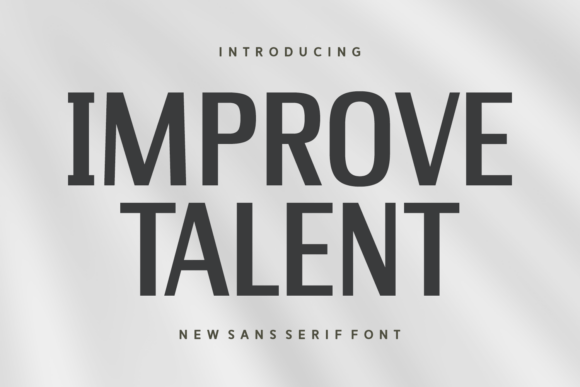
Introducing Improve Talent Font: Elevate Your Brand with Clarity and Confidence
In the world of typography, fonts play a crucial role in conveying messages, expressing emotions, and establishing brand identities. Among the numerous fonts available, Improve Talent stands out as a sharp and confident sans serif font designed to deliver clarity with presence. Its tall letterforms and balanced spacing make it perfect for editorial headlines, corporate branding, and motivational posters. In this article, we’ll explore the features, benefits, and applications of Improve Talent font, and how it can elevate your brand’s visual communication.
Key Features of Improve Talent Font
- Sharp and Confident Design: Improve Talent boasts a sleek and modern sans serif design that exudes confidence and sophistication.
- Tall Letterforms: The font’s tall letterforms provide a sense of grandeur and elegance, making it ideal for headlines and titles.
- Balanced Spacing: The carefully crafted spacing between letters ensures optimal readability and visual harmony.
- Versatile: Improve Talent is suitable for various applications, from editorial design to corporate branding and advertising.
Applications of Improve Talent Font
Improve Talent font is designed to deliver clarity and presence in various contexts. Here are some of the ideal applications for this font:
- Editorial Headlines: Improve Talent’s sharp and confident design makes it perfect for newspaper and magazine headlines, adding a touch of sophistication and elegance.
- Corporate Branding: The font’s modern and sleek design is well-suited for corporate branding, logos, and marketing materials, conveying a sense of professionalism and expertise.
- Motivational Posters: Improve Talent’s tall letterforms and balanced spacing create a sense of grandeur and inspiration, making it ideal for motivational posters and quotes.
- Presentations: The font’s clarity and readability make it perfect for presentations, ensuring your message is conveyed with confidence and authority.
- Display Advertising: Improve Talent’s bold and confident design makes it suitable for display advertising, grabbing attention and conveying your message with impact.
Benefits of Using Improve Talent Font
Improve Talent font offers numerous benefits for designers, marketers, and businesses. Here are some of the advantages of using this font:
- Enhanced Readability: Improve Talent’s clear and balanced design ensures optimal readability, making it easy for audiences to understand your message.
- Increased Brand Visibility: The font’s unique and confident design helps establish a strong brand identity, setting your brand apart from competitors.
- Improved Communication: Improve Talent’s clarity and presence ensure that your message is conveyed with confidence and authority, facilitating effective communication.
- Versatility: The font’s versatility allows it to be used across various applications, from print to digital media.
Tips for Effective Use of Improve Talent Font
To maximize the impact of Improve Talent font, consider the following tips:
- Use it for Headlines: Improve Talent is designed for headlines and titles, making it perfect for grabbing attention and conveying your message.
- Pair it with Complementary Fonts: Combine Improve Talent with complementary fonts to create visual harmony and add depth to your design.
- Experiment with Colors: Try different colors and gradients to add visual interest and create a unique brand identity.
- Consider Font Sizes: Use Improve Talent in various font sizes to create visual hierarchy and emphasize key messages.
Comparison with Other Fonts
Improve Talent font stands out from other sans serif fonts due to its unique features and design elements. Here’s a comparison with other popular fonts:
- Open Sans: While Open Sans is clean and modern, Improve Talent’s tall letterforms and balanced spacing provide a more confident and elegant look.
- Montserrat: Montserrat’s geometric design is sleek, but Improve Talent’s sharp and confident design makes it more attention-grabbing.
- Helvetica: Helvetica is a classic sans serif font, but Improve Talent’s unique design elements and balanced spacing make it more versatile and modern.
| Font Name | Improve Talent Font |
Improve Talent font is a sharp and confident sans serif font designed to deliver clarity with presence. Its tall letterforms, balanced spacing, and versatile design make it perfect for editorial headlines, corporate branding, motivational posters, and presentations. By incorporating Improve Talent into your visual communication, you can elevate your brand’s message, establish a strong brand identity, and convey your message with confidence and authority.